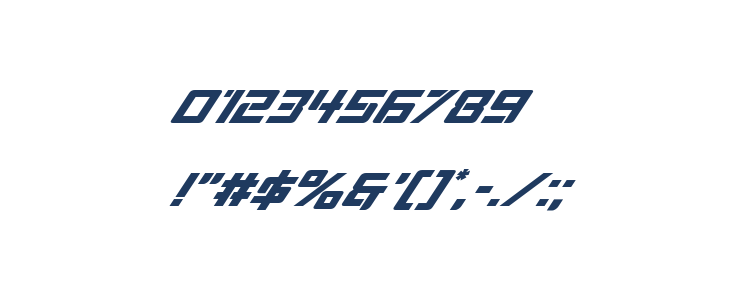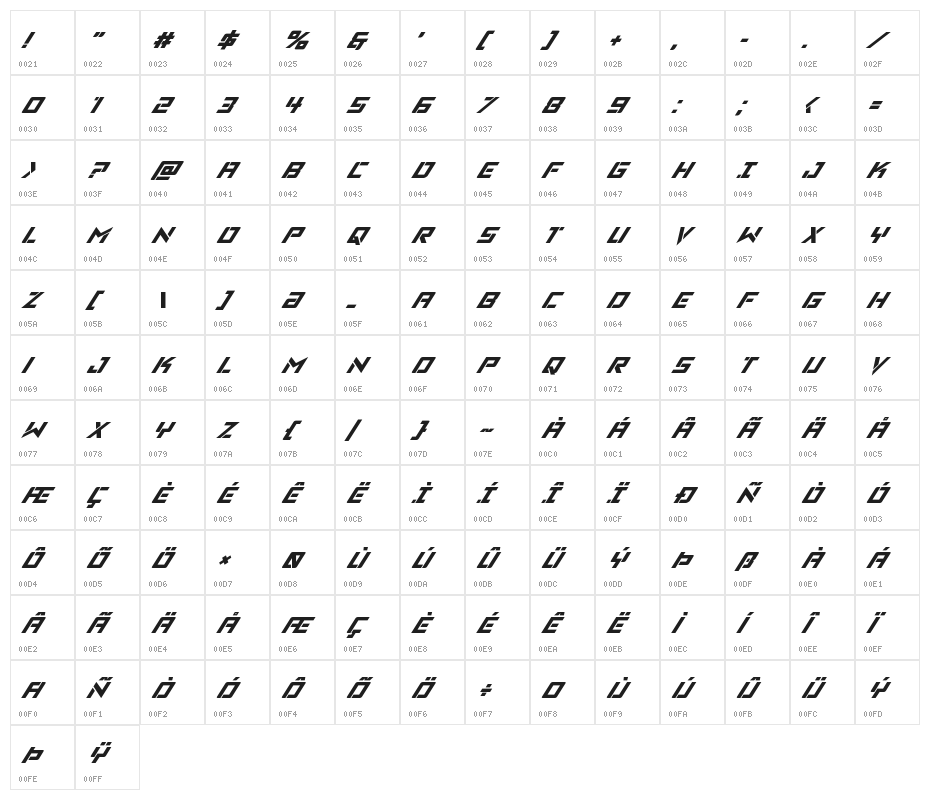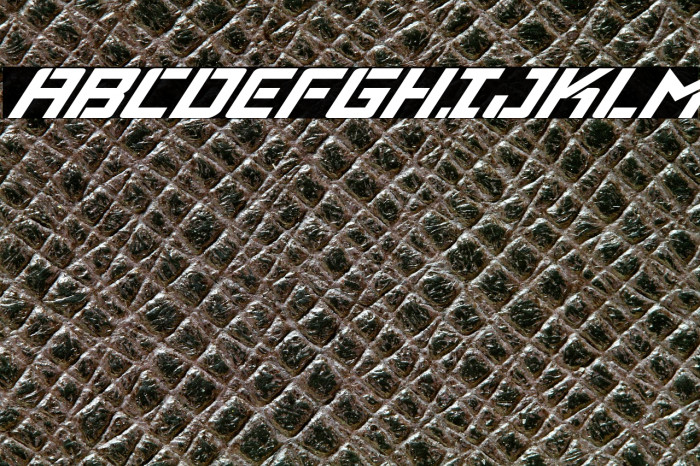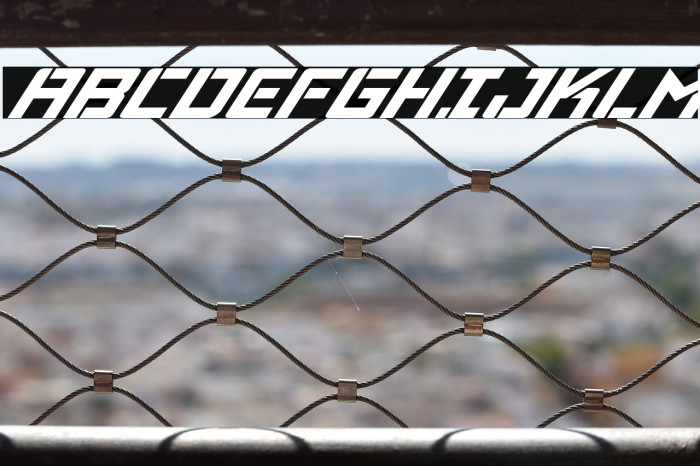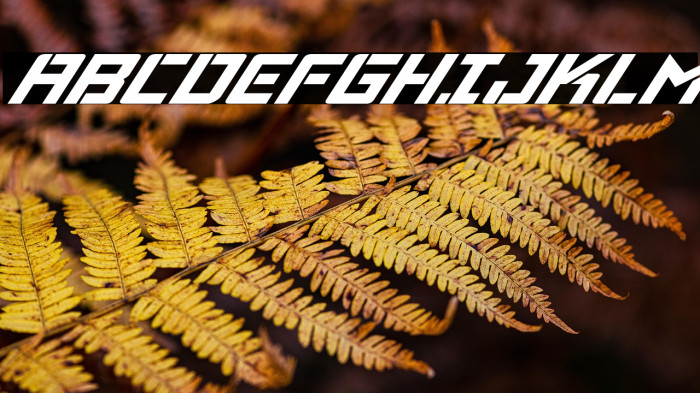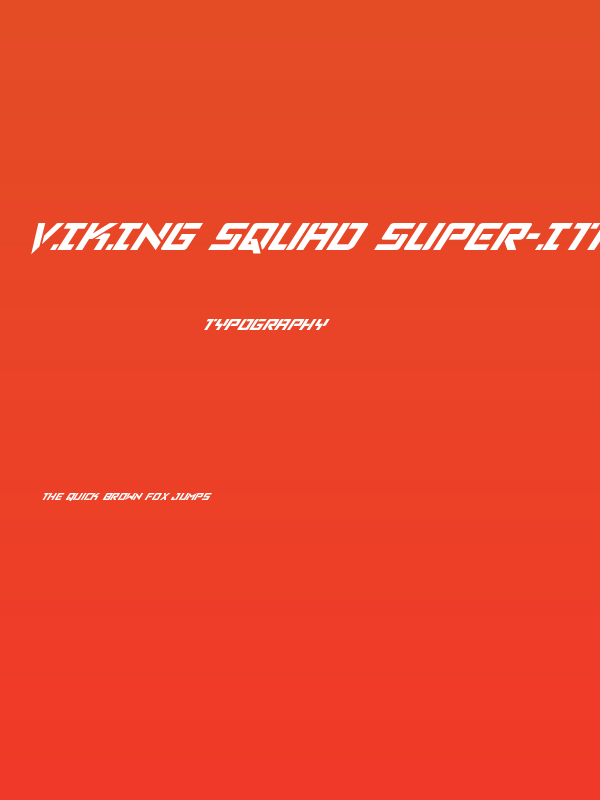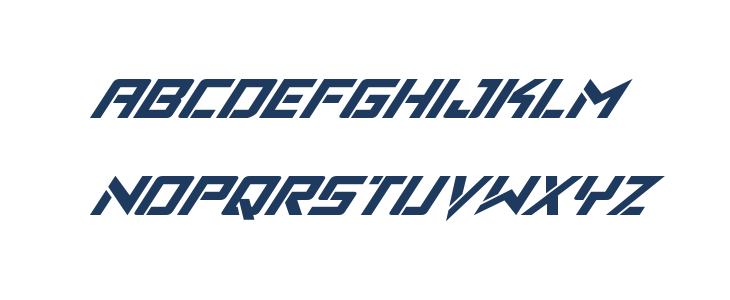
Viking Squad Super-Italic Font
Viking Squad Super-Italic Description
This font features a bold and dynamic style with a strong italic slant, giving it a sense of movement and energy. The characters are angular and geometric, with sharp edges and a futuristic appearance. The uppercase and lowercase letters maintain a consistent design, emphasizing uniformity and cohesion. Numbers and special characters are designed to match the overall aesthetic, making the font versatile for various uses. The bold weight and italic style contribute to its striking presence, making it ideal for attention-grabbing designs.